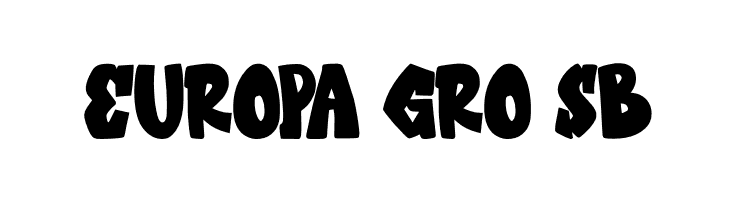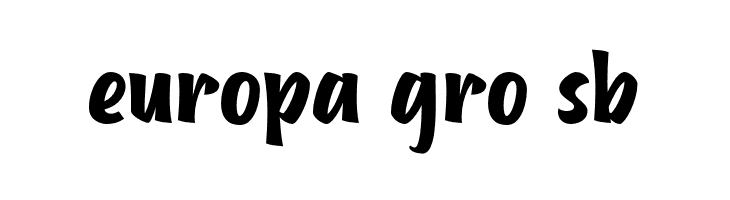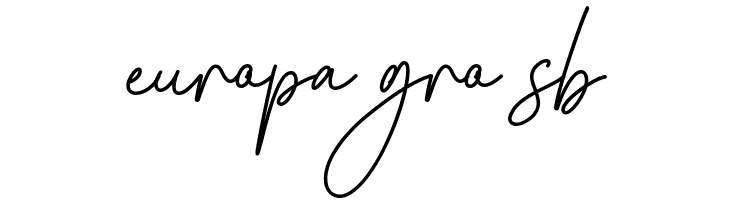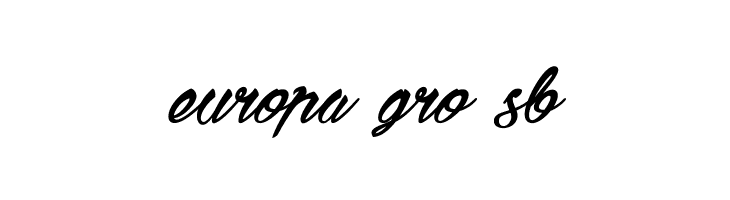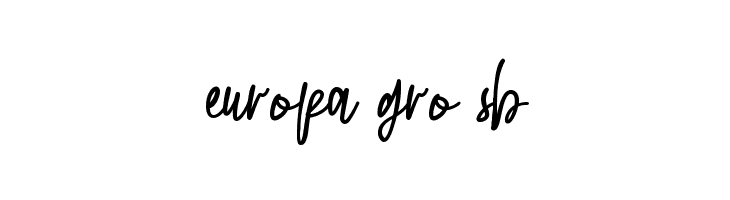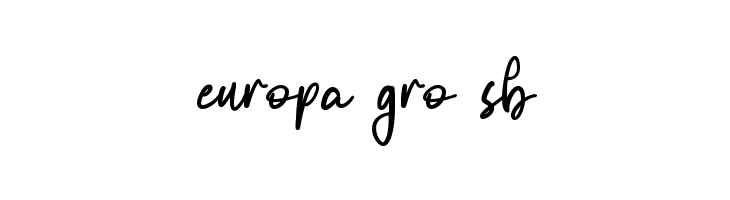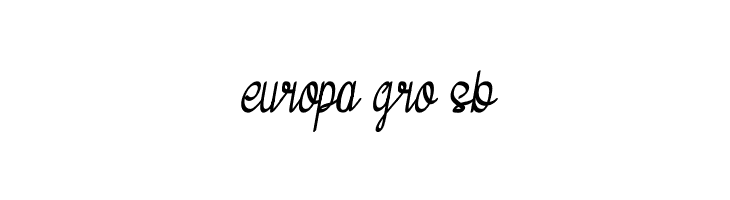
Elegant script font with flowing, decorative style.
A playful, hand-drawn font with whimsical characters and decorative flair.
A playful, hand-drawn font with a whimsical and energetic style.
A playful, rounded font with geometric elements and consistent stroke widths.
An elegant, flowing script font with intricate strokes and high contrast, perfect for refined projects.
A bold, stencil-style font with an industrial and rugged appearance.
A dynamic and elegant script font with fluid, cursive letterforms.
A bold, expressive script font with a hand-drawn, artistic style.